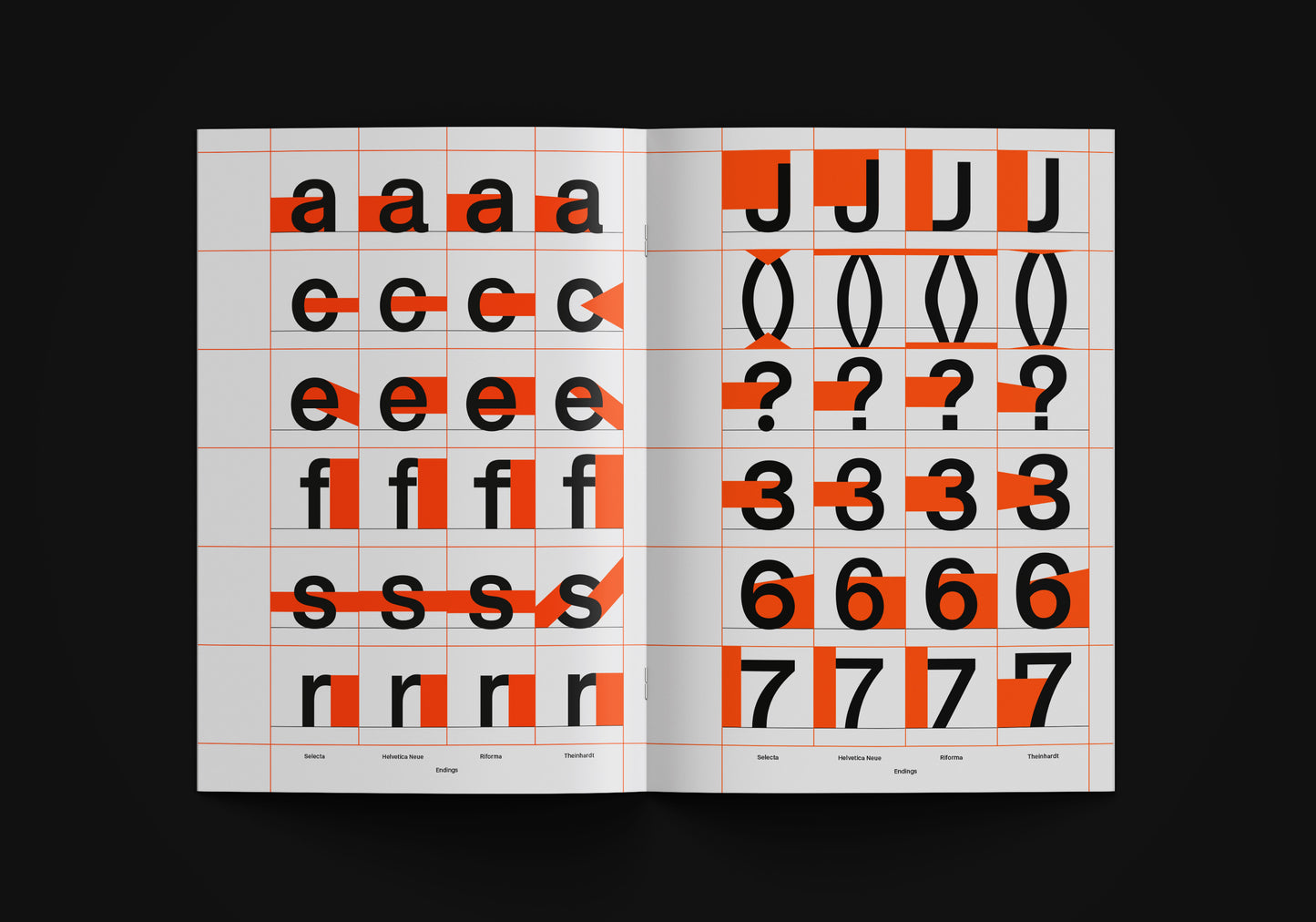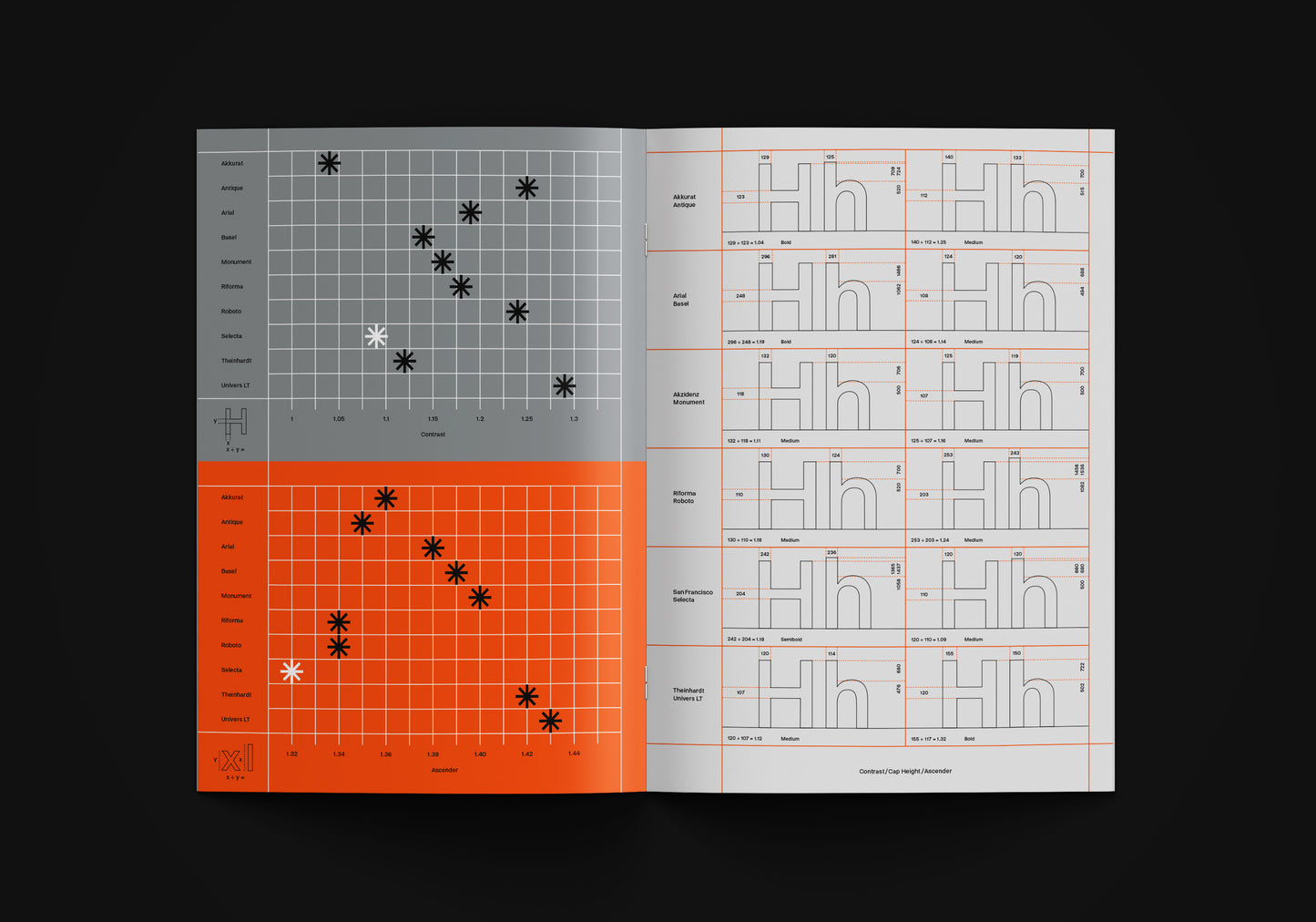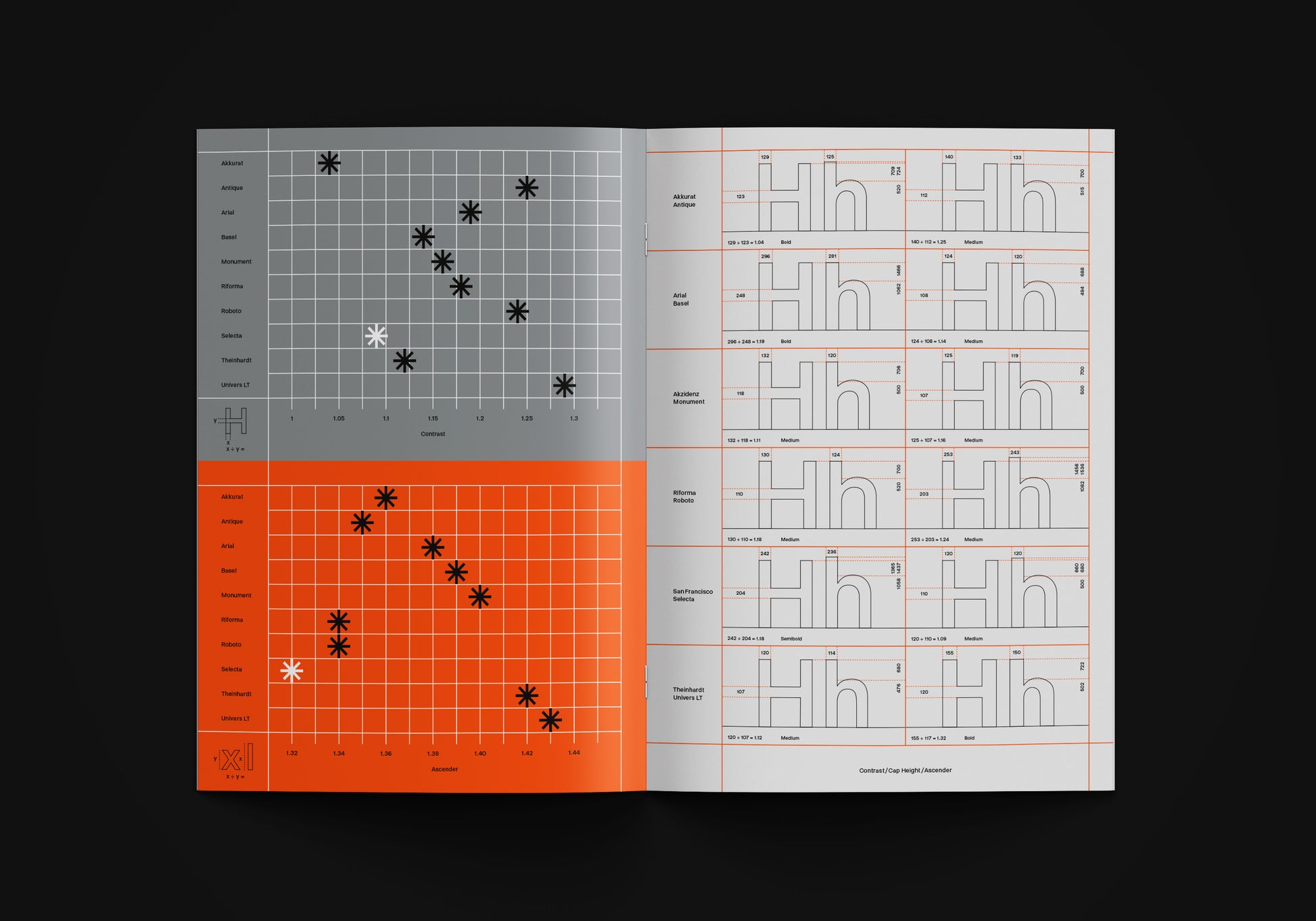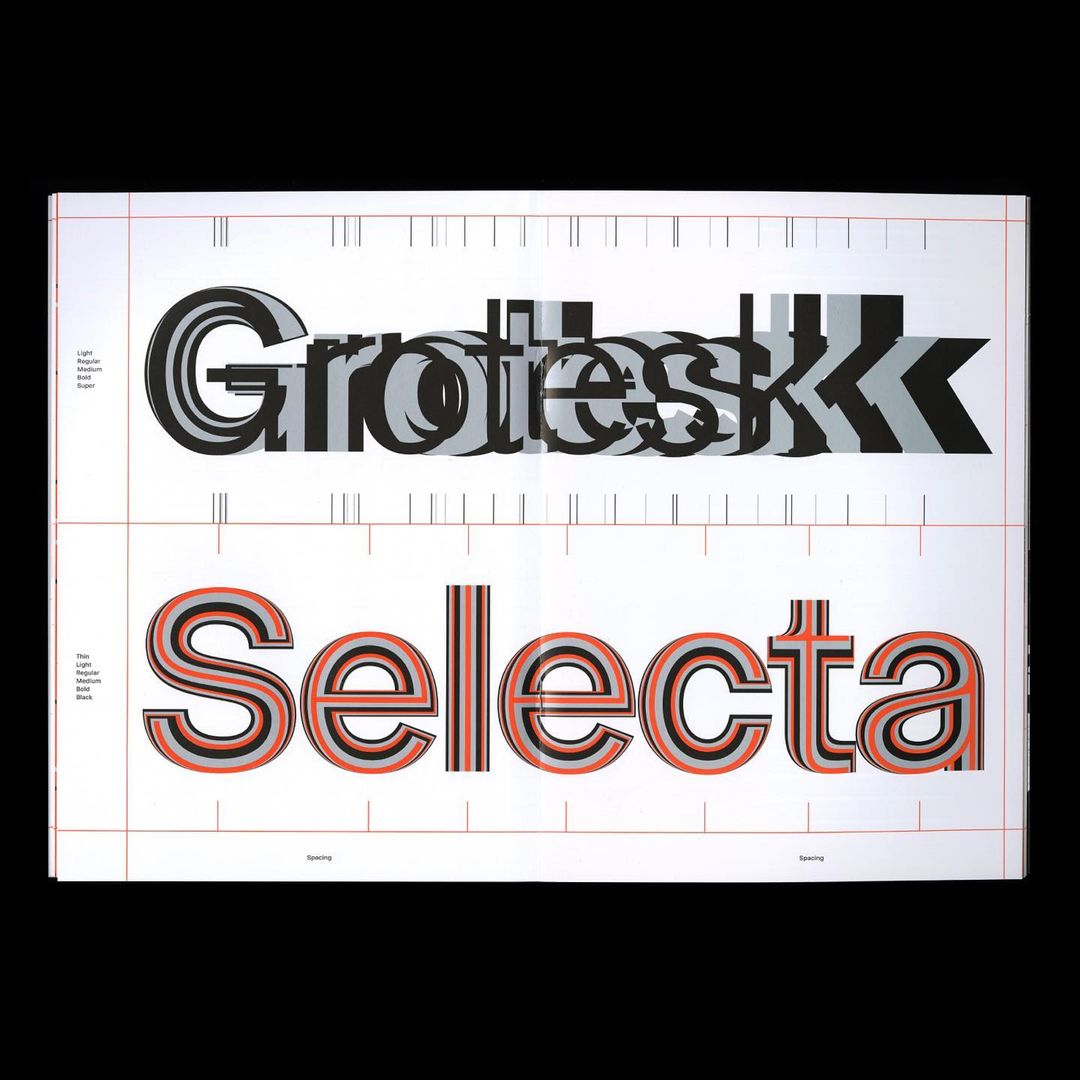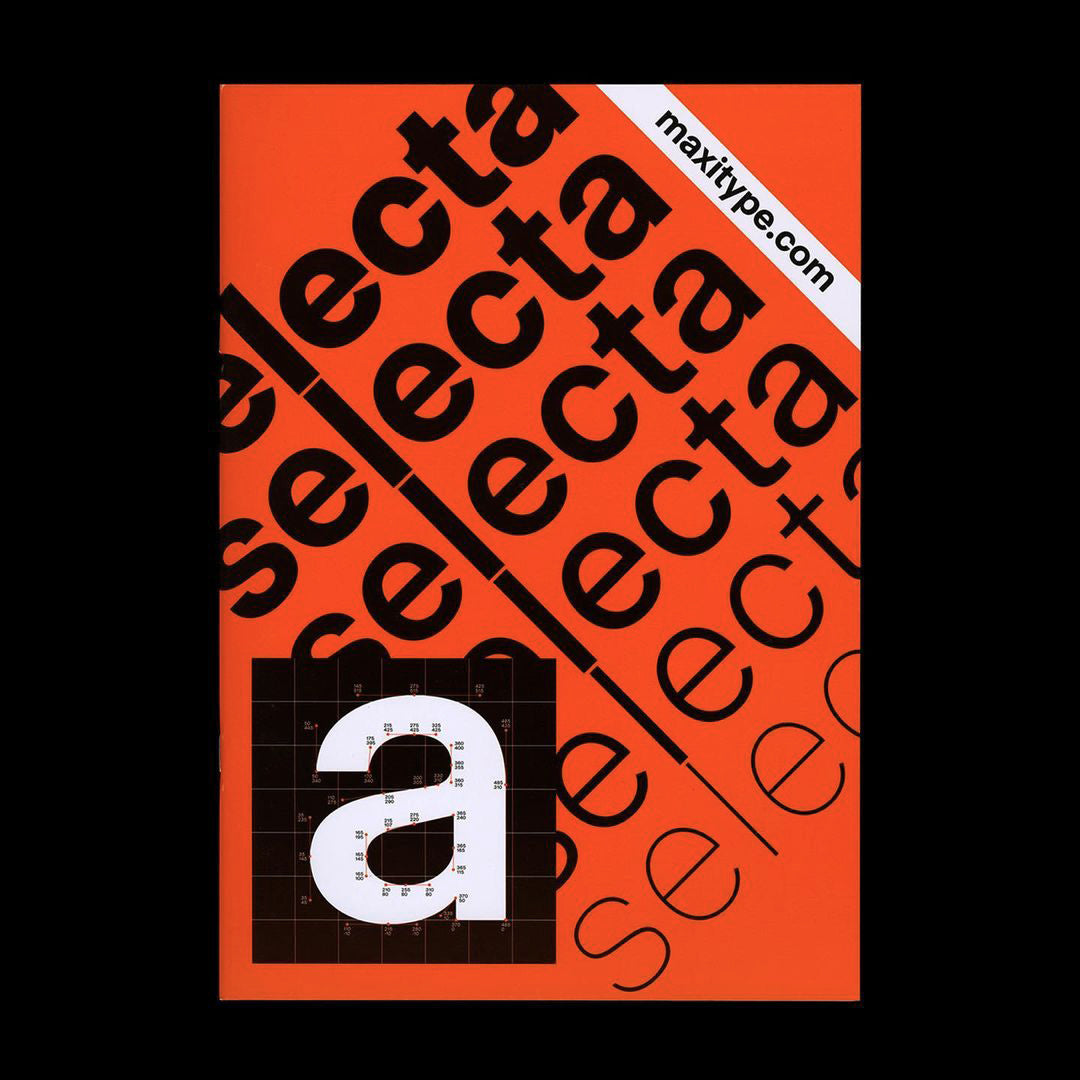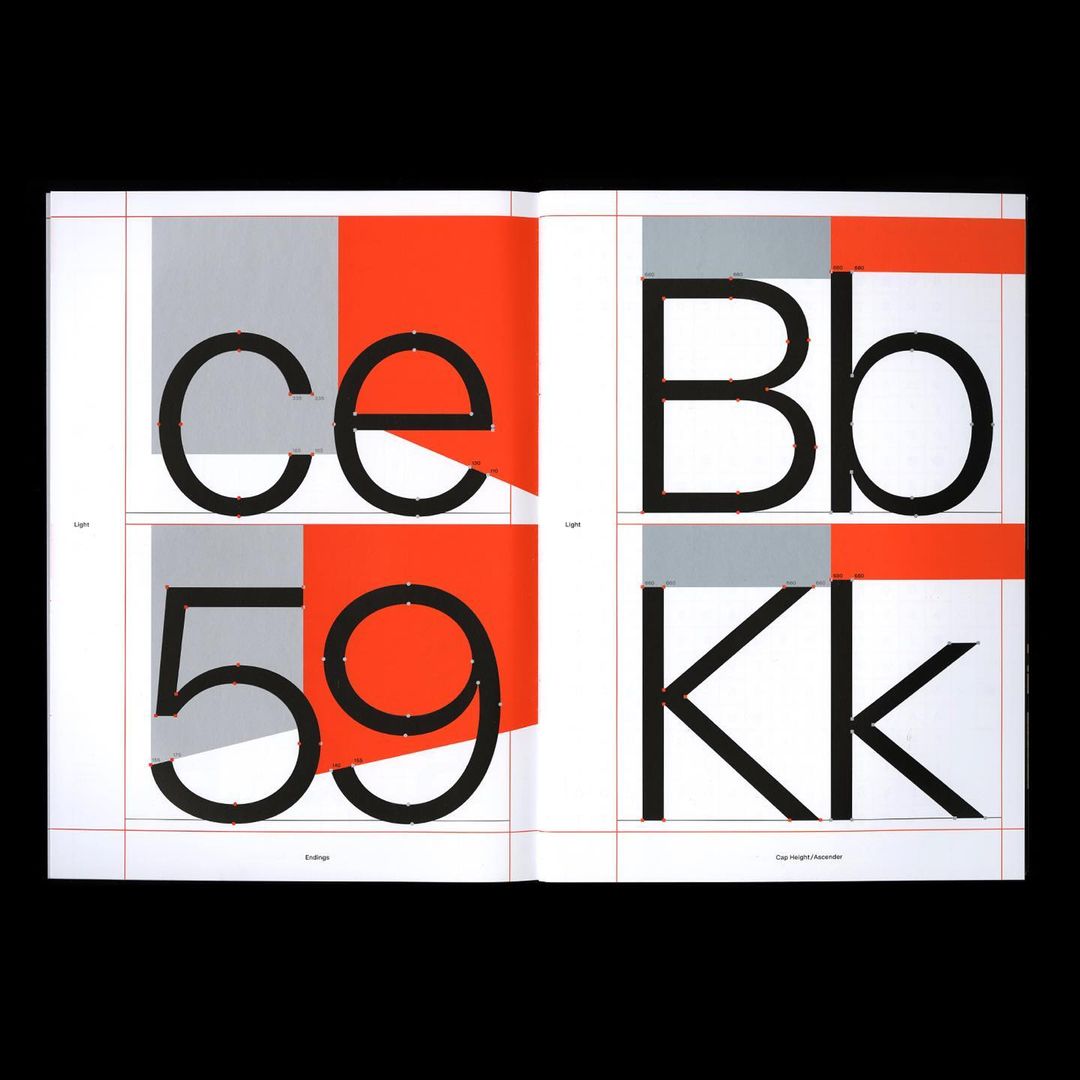
Selecta Type Specimen
Published by Maxitype, 2022
Designed by Giliane Cachin
Selecta Type Specimen compares Selecta with a series of modern historical typefaces by means of diagrams. This typographic study exposes the research on the ‘grotesque’ genre that led to the design of this typeface by Maximage (Daniel Haettenschwiller).